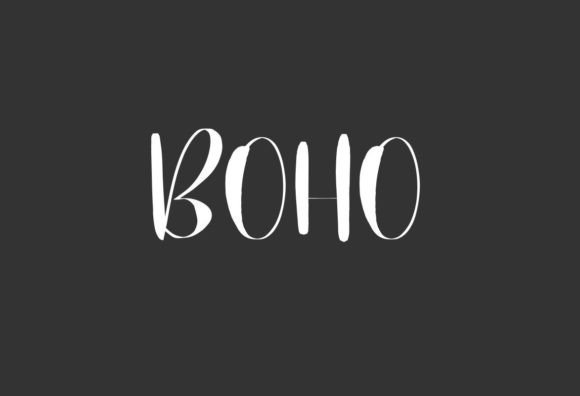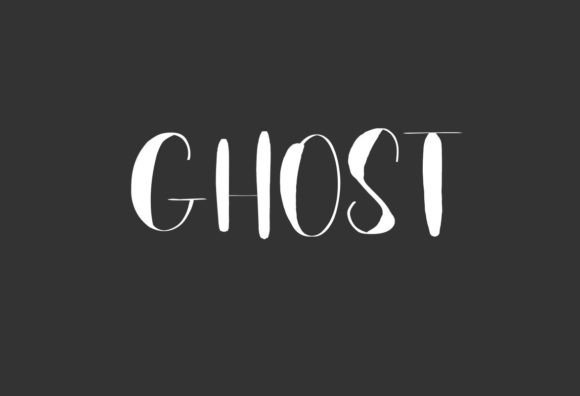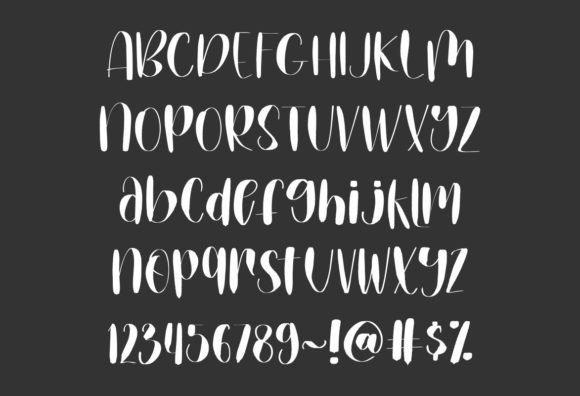
Unleash the Spooky Spirit: Exploring the Delights of Halloween Font
Halloween is a time for creativity, self-expression, and a dash of spookiness. For designers, crafters, and enthusiasts, the right font can elevate a project from ordinary to extraordinary. That’s where the Halloween Font comes in – a fun and whimsical handwritten font that’s sure to cast a spell on your audience. In this article, we’ll dive into the world of Halloween Font, exploring its unique characteristics, uses, and benefits.
A Quirky yet Versatile Font
Halloween Font is a little bit quirky, but that’s what makes it so charming. This handwritten font boasts a playful, informal feel that’s perfect for a wide range of contexts. Whether you’re designing invitations, party decorations, or digital graphics, Halloween Font is sure to add a touch of whimsy and personality to your project.
One of the standout features of Halloween Font is its incredible versatility. It can be used for both personal and commercial projects, from crafting spooky sweet treats to creating eye-catching posters and flyers. The font’s adaptability makes it an excellent choice for designers and crafters who want to create unique and engaging content.
What Makes Halloween Font So Special?
So, what sets Halloween Font apart from other fonts? Here are a few reasons why this font is a must-have for designers and crafters:
- Unique Character Set: Halloween Font features a distinctive character set that’s full of personality. From the swooping curves to the playful letterforms, every character is designed to add a touch of whimsy to your project.
- Handwritten Feel: The font’s handwritten feel gives it a warm, organic look that’s perfect for creating a sense of nostalgia or playfulness.
- Easy to Read: Despite its quirky nature, Halloween Font is incredibly easy to read, making it perfect for use in body text or headings.
Using Halloween Font in Your Projects
Now that we’ve explored the features and benefits of Halloween Font, let’s talk about how to use it in your projects. Here are a few ideas to get you started:
- Halloween Invitations: Create spooky (or not-so-spooky) invitations for Halloween parties, complete with creepy crawlies, ghosts, and other seasonal decorations.
- Party Decorations: Use Halloween Font to create eye-catching party decorations, such as banners, garlands, and signs.
- Digital Graphics: Add a touch of Halloween magic to your digital graphics, including social media posts, blog headers, and email newsletters.
- Crafting Projects: Incorporate Halloween Font into your crafting projects, such as scrapbooking, card-making, and DIY gifts.
Tips and Tricks for Working with Halloween Font
To get the most out of Halloween Font, here are a few tips and tricks to keep in mind:
- Experiment with Colors: Halloween Font looks great in a range of colors, from traditional orange and black to more unexpected hues like purple and green.
- Mix and Match: Combine Halloween Font with other fonts or graphics to create a unique and eye-catching look.
- Play with Size: Experiment with different font sizes to create visual interest and hierarchy in your design.
Halloween Font is a fun and whimsical handwritten font that’s perfect for designers, crafters, and enthusiasts who want to add a touch of spookiness to their projects. With its unique character set, handwritten feel, and ease of use, this font is sure to become a go-to choice for anyone looking to create engaging and creative content. So why wait? Unleash the spooky spirit and get creative with Halloween Font today!